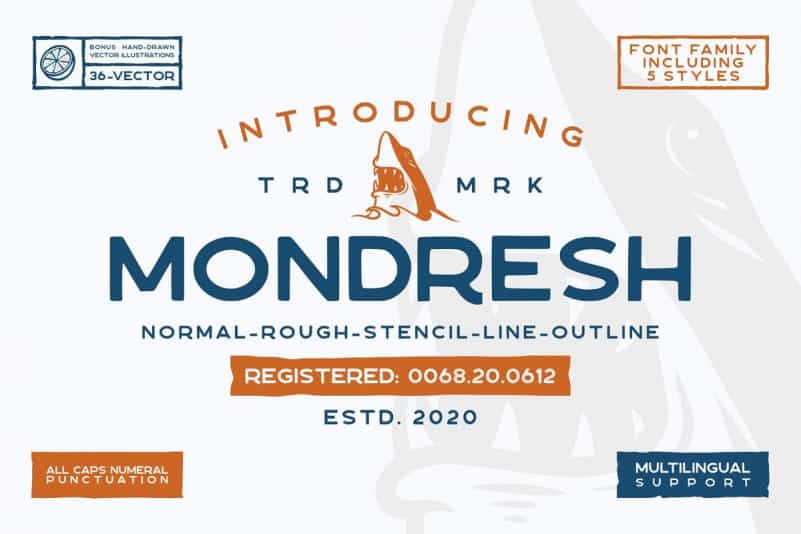
Mondresh Rough Display Font
Hi friend. Introducing Mondresh Rough sans serif an elegant new typeface! This font is specially created for those of you who need a touch of elegance to design your projects next with perfect results and amazing.
It’s designed and shared by 24Design Studios. This Font is a display sans serif font with a rugged style aimed at designs with classic and vintage styles. This font is available in 5 styles, normal, texture, line, outline, and stencil.
Mondresh Rough Display Font A very beautiful and interesting sans serif, and comes with a perfect line for use for various purposes. Like titles, logos, correspondence, letterheads, nameplate, labels, bulletins, posters, badges, Branding, Greeting Cards, etc.